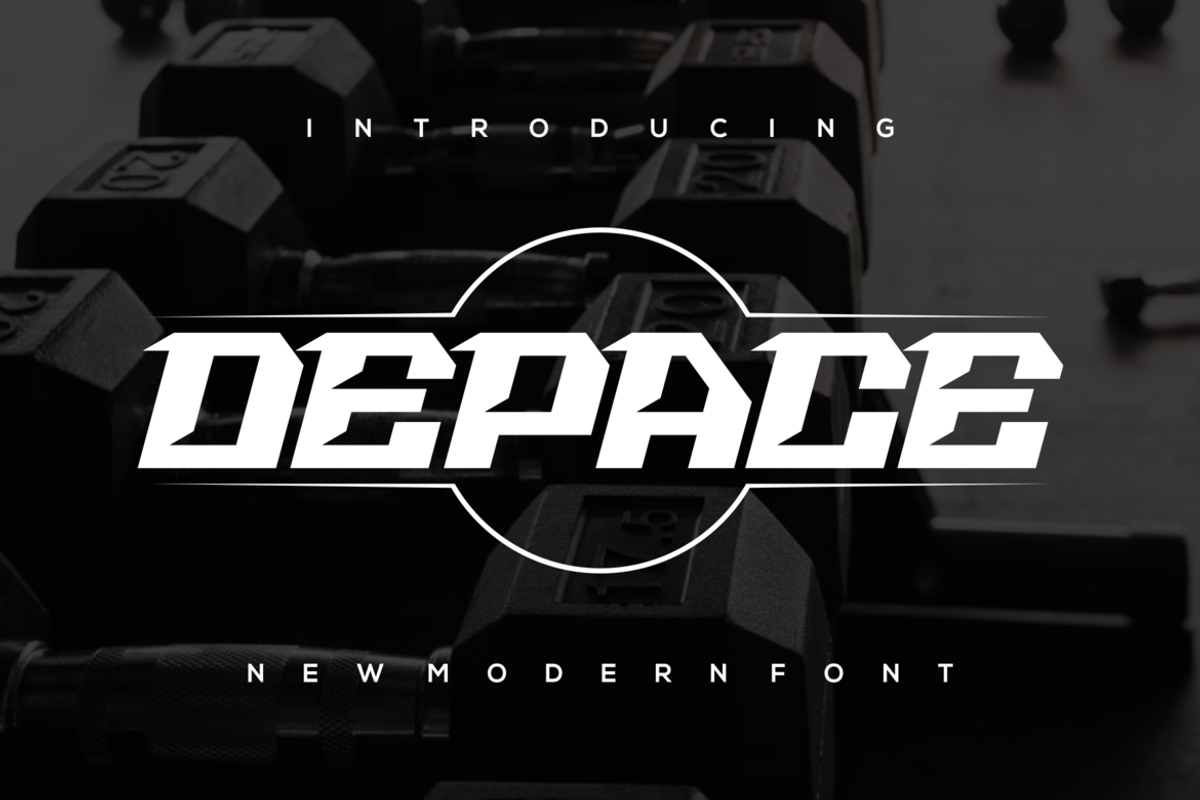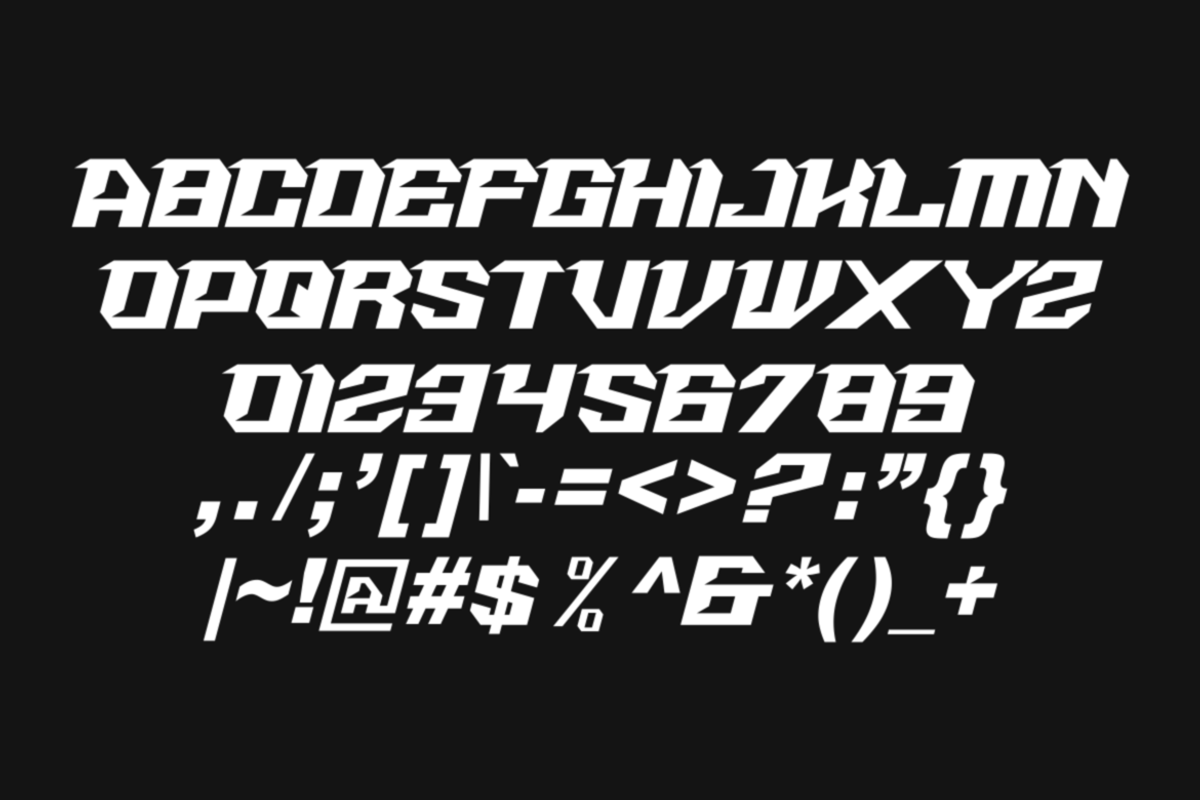
Depace
Introducing our new product Depace Font - Modern Font
Depace Font - Modern Font is a bold and authentic display font. The font is suitable for any branding project like logo, t-shirt printing, esport, and many more. outstanding in a wide range of contexts.